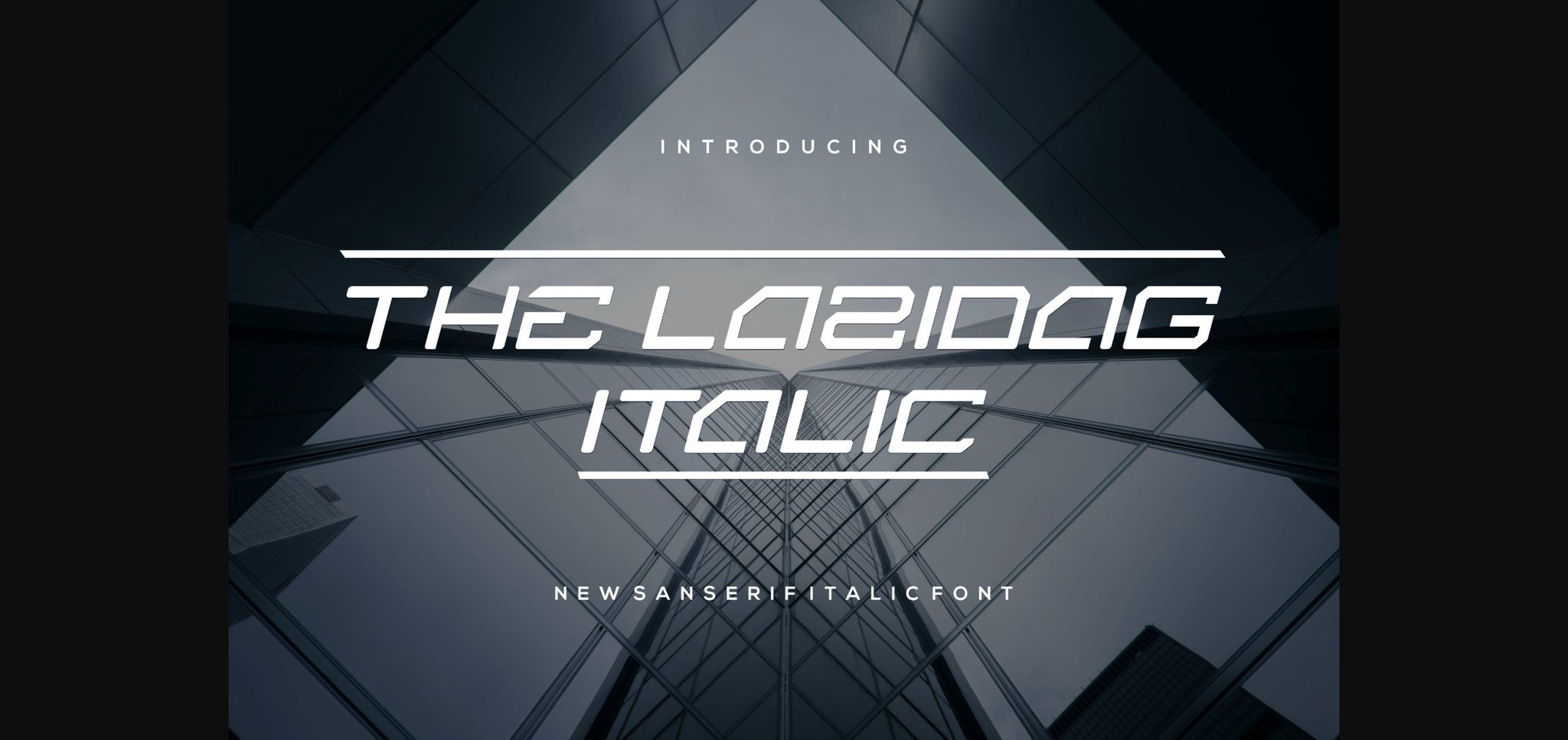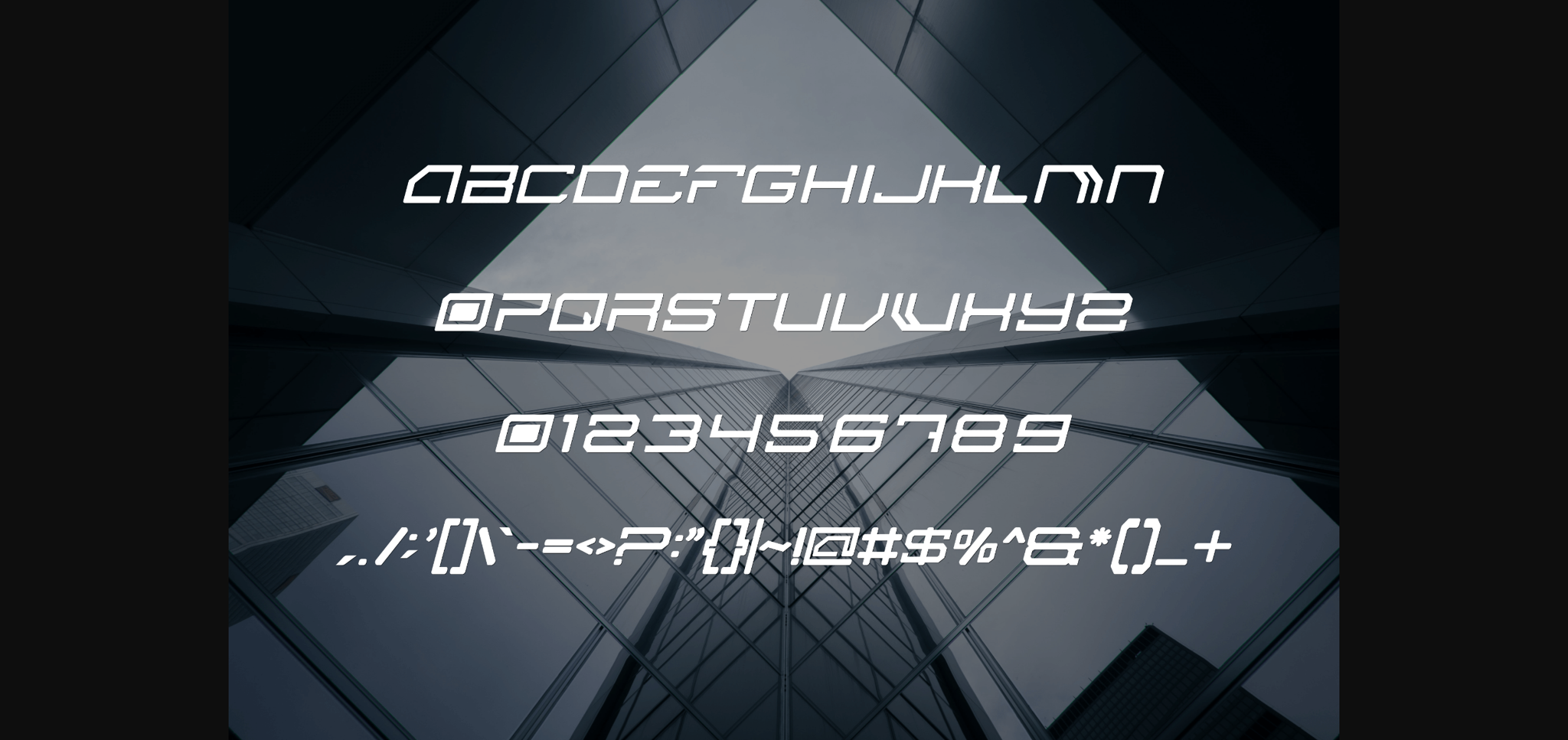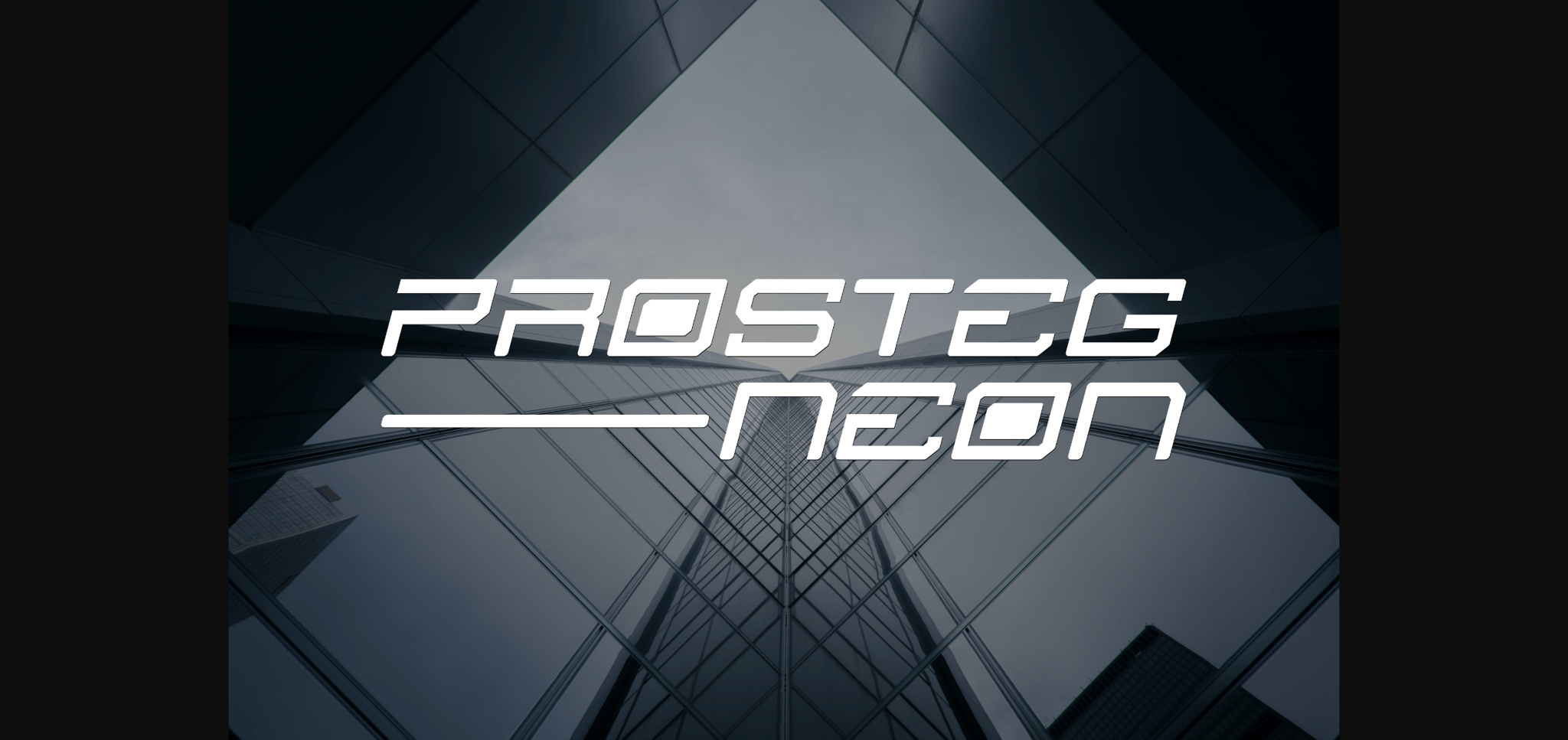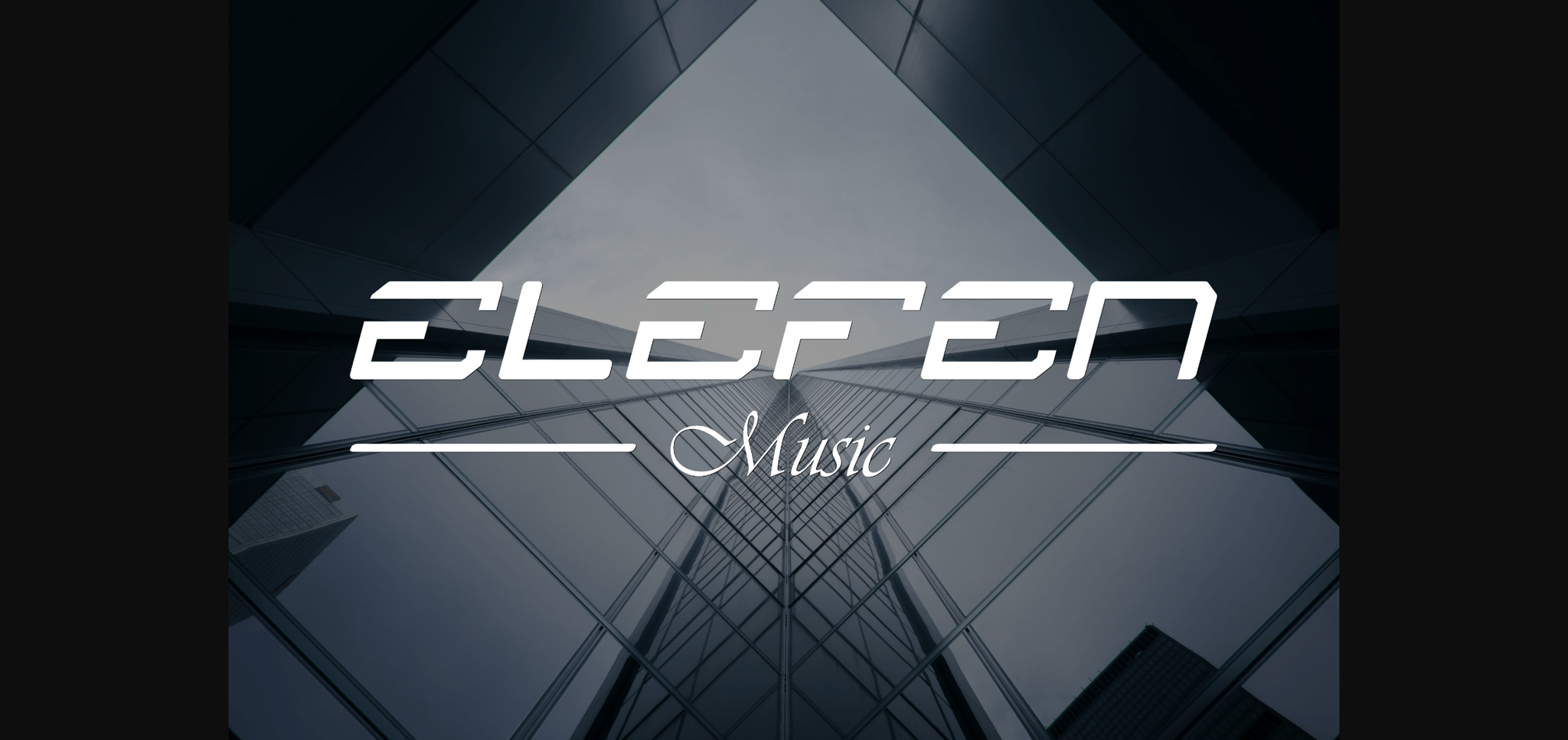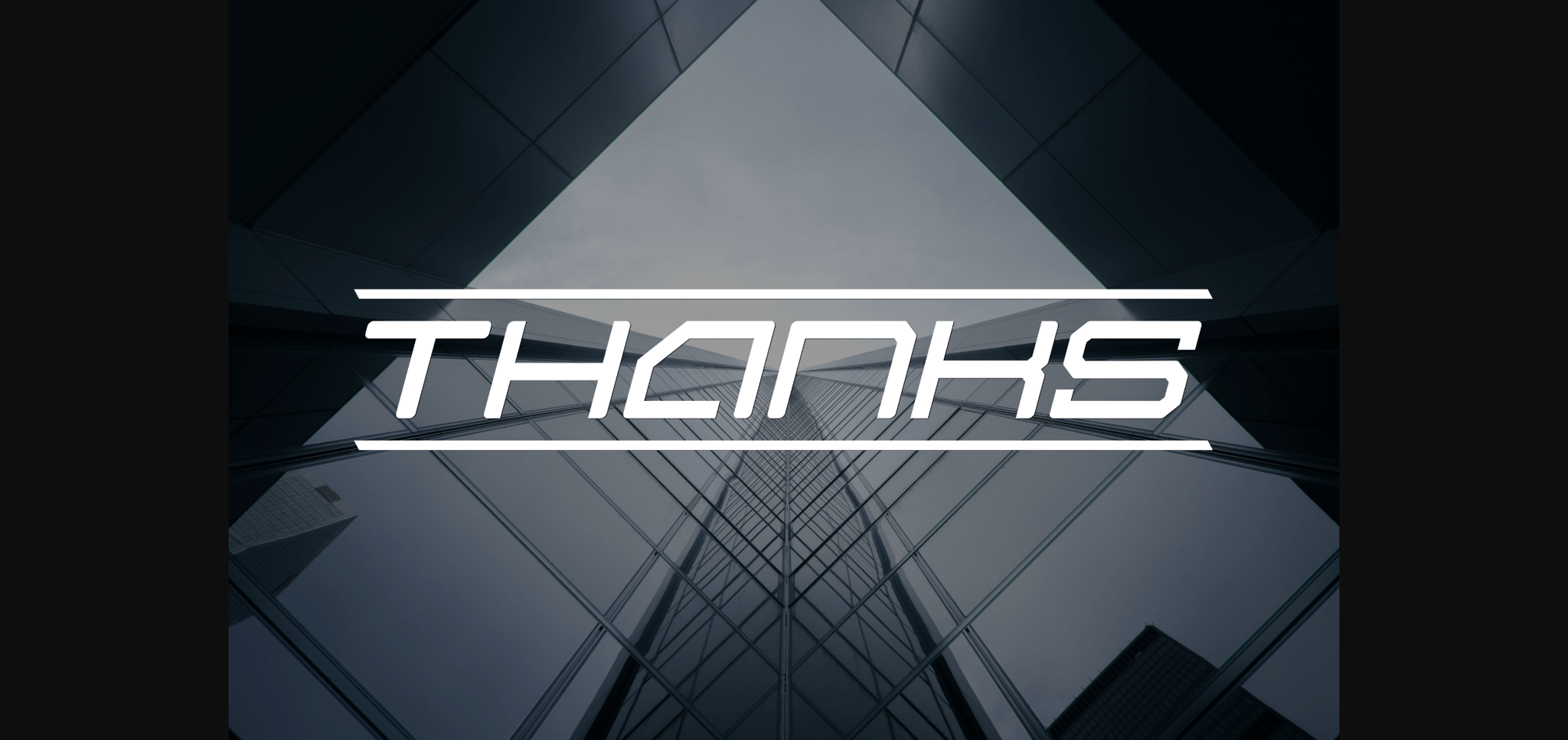
The Lazidag Font
About The Lazidag Font
The Lazidag is a sans serif font with a charming touch. This unique font is suitable for those who want a design that displays an interesting side but is still relevant for a modern look.